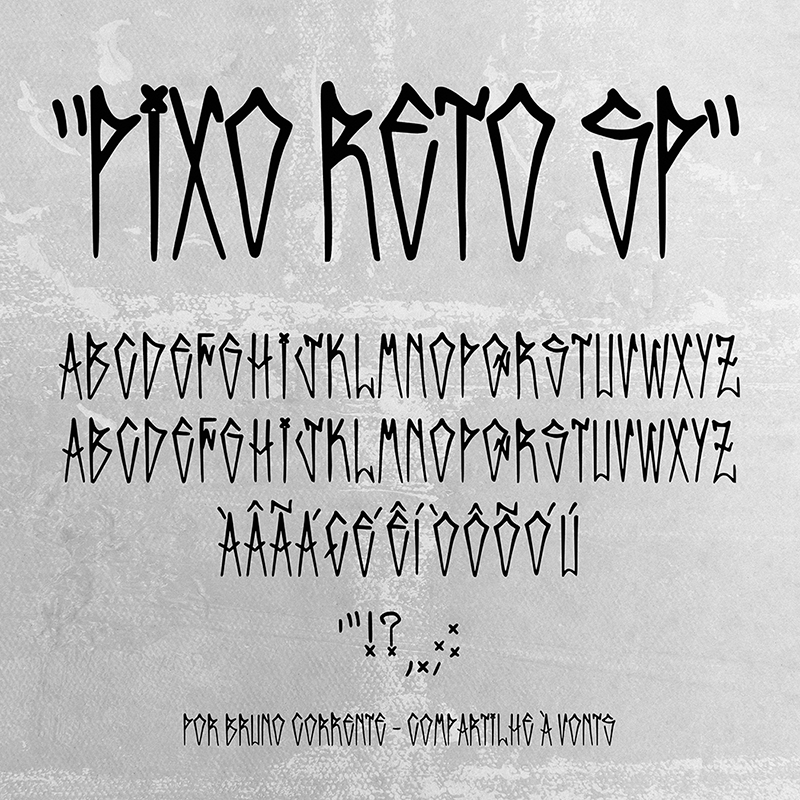
Preview and download Pixo Reto SP Font. Created by Bruno Corrente in Script Graffiti styles with 100% Free license.
PIXO RETO SP Based on the typography that comes from the streets of S�o Paulo (Brazil): Pixa��o. Pixa��o is considered vandalism by many people, and considered an artistic manifestation by so many others. For free and unrestricted use. Last update: spacing adjustments, metadata and licensing update. _________________ PIXO RETO SP Baseada na tipografia das ruas de S�o Paulo: a Pixa��o. A pixa��o � considerada vandalismo por muitos, e considerada uma manifesta��o art�stica por outros tantos. Para uso livre, gratuito e irrestrito. �ltimas atualiza��es: ajustes de espa�amento, metadados e licen�a de uso. _________________ Contact: brunocorrente@gmail.com |